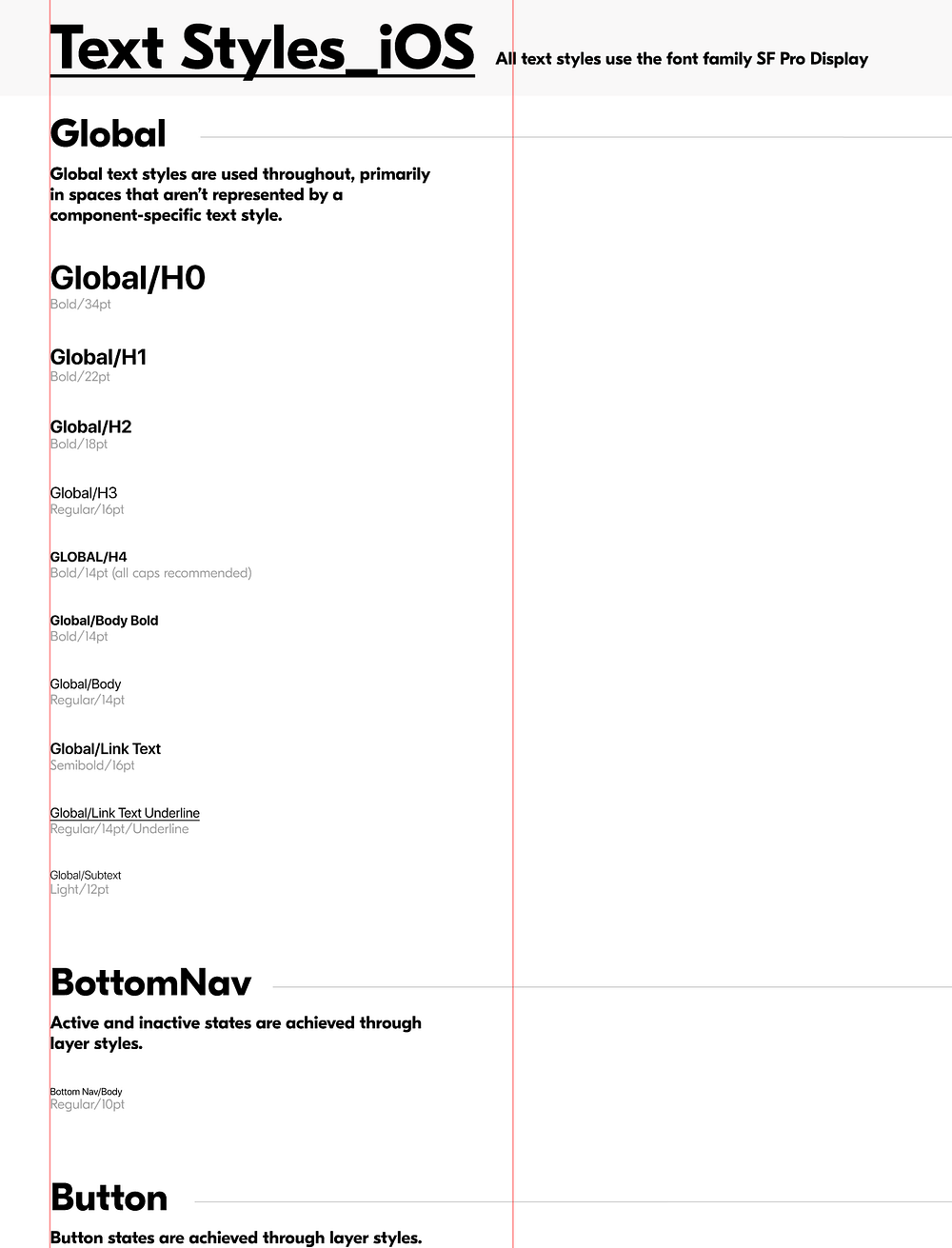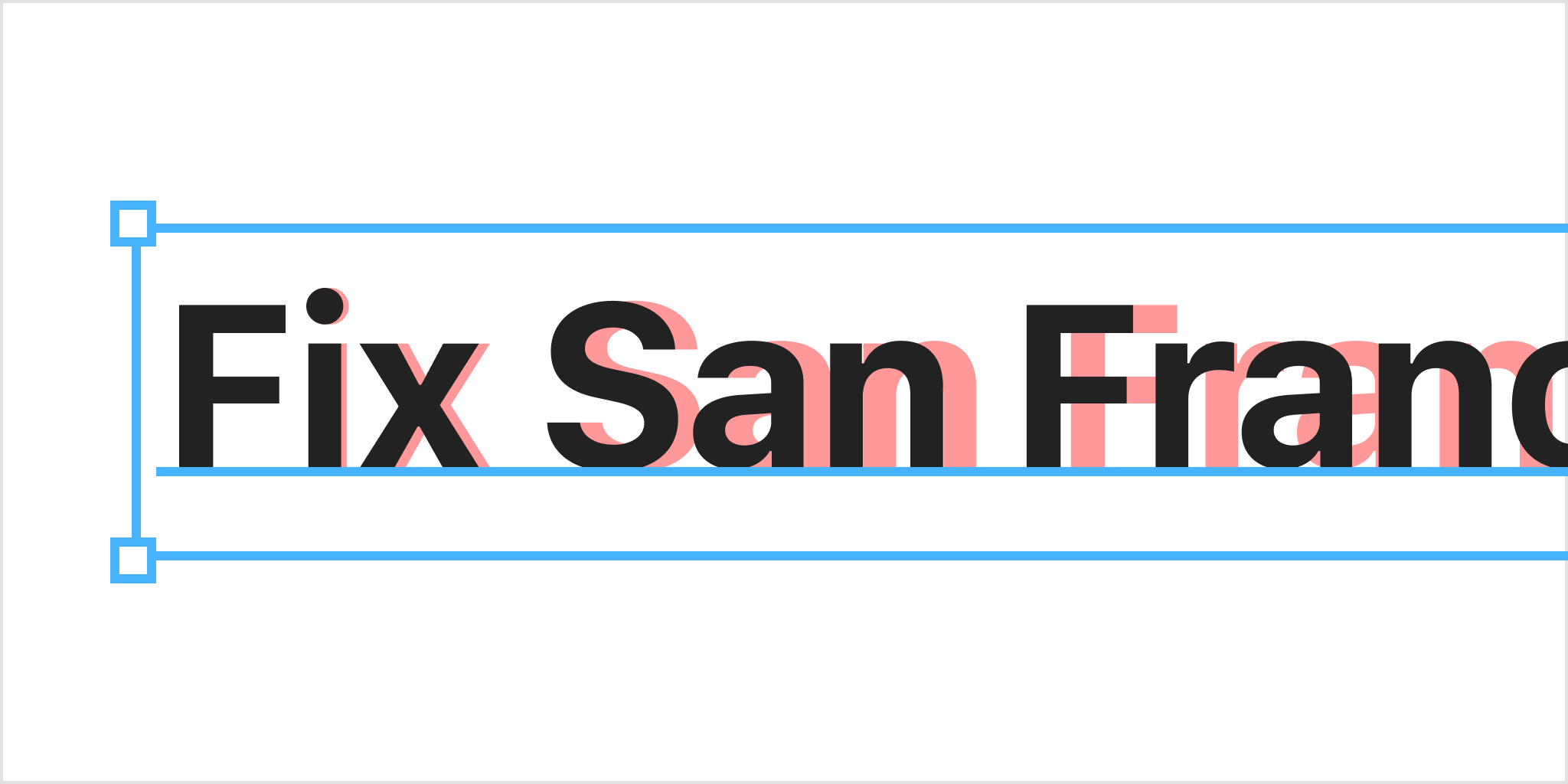
Sf Pro Display Font Figma
When you use san francisco for text in labels and other interface elements, carplay automatically applies the most appropriate variant based on the point size. When designing in figma, it would be beneficial to be able to match this tracking automatically when using those fonts so interface mockups would be as accurate as possible.
Sf pro display font figma. Run fix san francisco from plugins menu.; Symbol icons browser plugin assists in input symbol glyphs, but the display of the glyph itself is due to the features of figma and sf fonts. Use sf pro text for text 19 points or smaller, and sf pro display for text 20 points or larger.
Sf pro features nine weights, variable optical sizes for optimal legibility, and includes a rounded variant. If you're using figma in the browser, looks like you need to install the figma font helper. Hmm…🤔 it looks the problem of compatibility with figma and sf font.
Set the font to sf pro text, font weight to regular and size to 20. The next one will be 'body main text'. I don't see sf ui anywhere on the official site.
Name the next layer 'medium text'. How to use select a frame or texts with “sf pro display”, “sf pro text”, sf pro rounded, or new york fonts.run “fix san franci. This is currently intended behavior/feature limitation;
If you have a different icon font installed on your device, you can still use these icon fonts in figma. By the way, does it work correctly when you type using the sf symbols app (official app by apple)? Set the font settings the same as above but instead of 20, set the font size to 17
Once extracted you can install the fonts like any other windows font. Figma community plugin — this plugin won't fix the city's problems, but it will automatically apply the correct font variant and tracking for selected texts using the san francisco typeface. To review, open the file in an editor that reveals hidden unicode characters.
Use the figma desktop app Ios and mac os automatically apply tracking depending on the size of san francisco pro text/display font (the system font) you use. The font specifically named “sf pro” is the variable weight font of the sf pro family, and figma does not support variable weight fonts at this time.
That being said, the following fonts “sf pro display/text/round” are the static weights and are supported in figma. Our team is facing a problem text display from figma differents with ios output. Then install sf pro text fonts on your pc and restart your computer.
If you're using the figma desktop app, you should be able to see local fonts by default. The screen contains some texts with setting: Figma will display the icon in the canvas:
San francisco (sf) is the carplay system typeface. The plugin will find all relevant texts in your selections. This worked for me, although i had to restart figma if i installed a font while it was open.
Sf pro supports over 150 languages across latin, greek, and cyrillic scripts. This plugin won't fix the city's problems, but it will automatically apply the correct font variant and tracking for selected texts using the san francisco typeface.